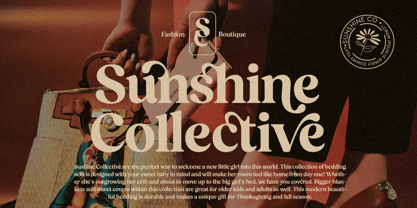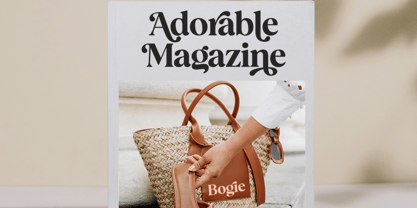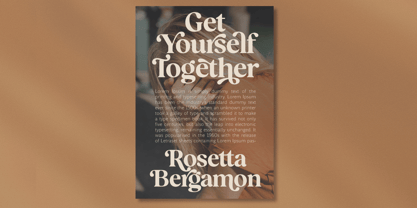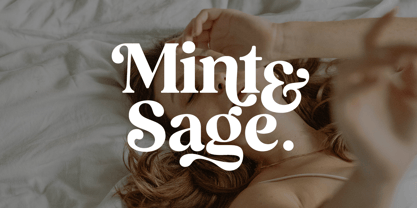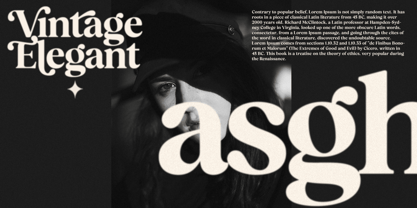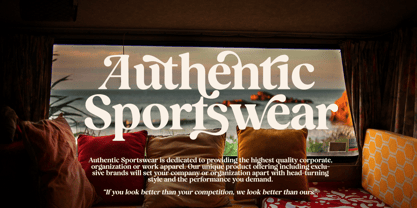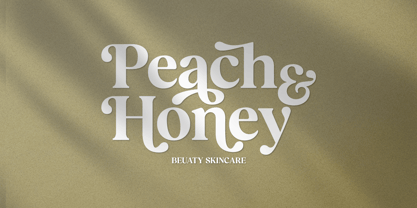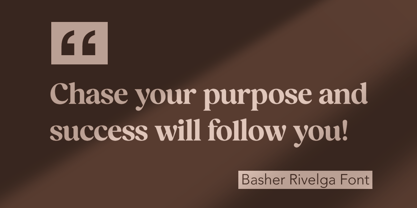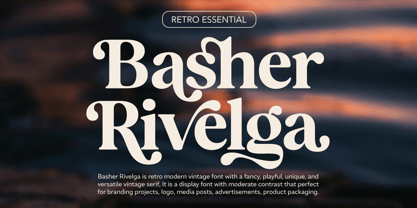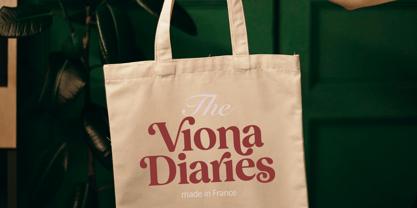
Basher Rivelga
by Gian Studio
The Basher Rivelga Font Family was designed by Yusliana M Isa and published by Gian Studio. Basher Rivelga contains 2 styles and family package options. More about this family
Basher Rivelga is a harmonious and stylish contemporary serif typeface with a classic feel. Includes 2 Fonts, upright and italic, swollen stems, and italics, growing along with the font character. OpenType features allow the application of typography such as ligatures and support for multiple languages.
Basher Rivelga also comes with two versions of Variable Regular and Italic to make it easier for designers to explore and refine beautiful designs, revealing many visual nuances and hidden secrets.
Basher Rivelga is a perfect choice for your various design projects such as editorial design, headlines, branding projects, Logo design, packaging, magazine titles, advertisements, short or long texts, web design, and more.